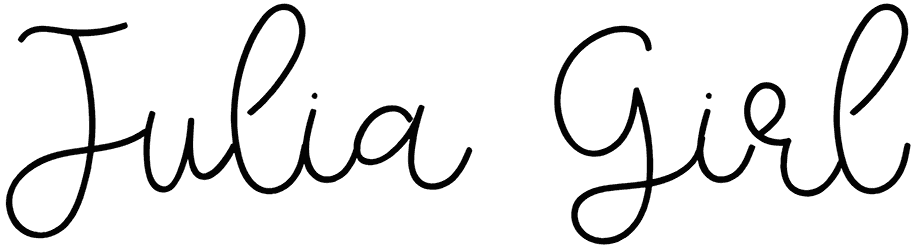
Julia Girl Font
Modern casual lettering is one of the most popular styles for varied designs, and this delicate neon font is one of them. The thin and smooth form of characters will give a minimal face to your text. Julia Girl font covers A-Z characters, and you can count on it for varied layouts like a daily Instagram story, a logo for a cosmetic brand, and so on.